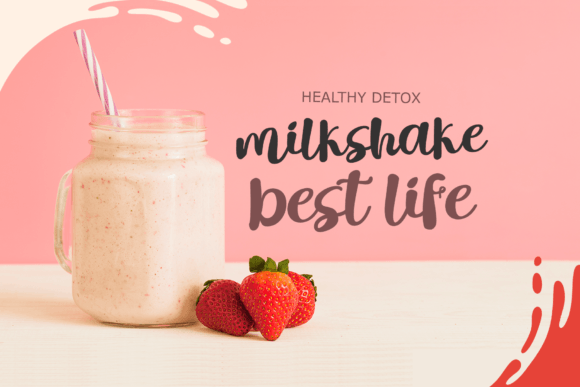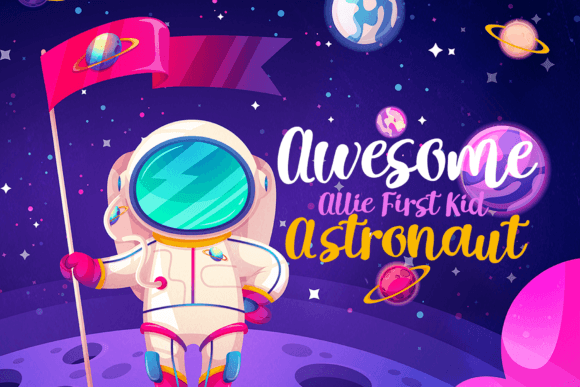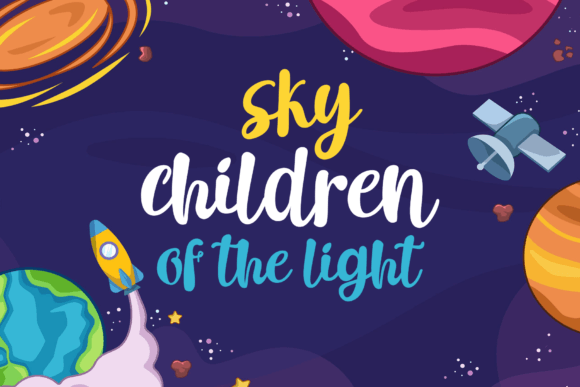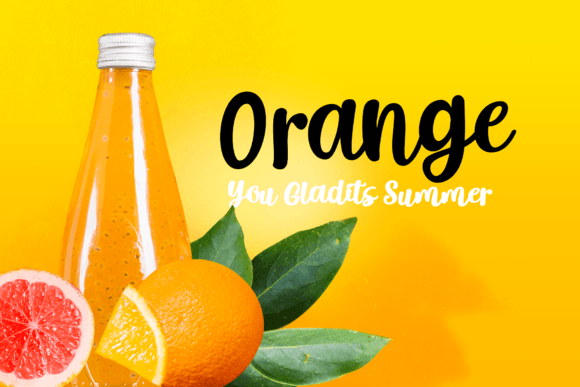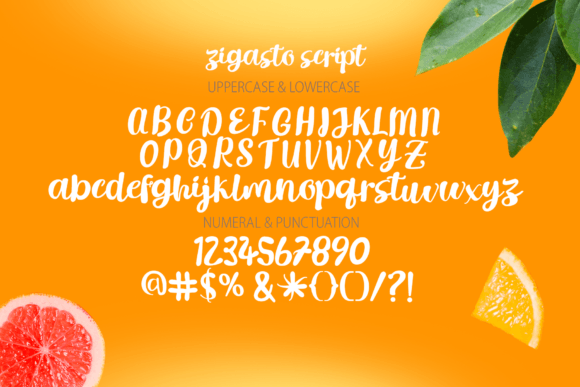
Zigasto Font
About Zigasto Font
Zigasto Font is a bold and rounded script typeface that brings a perfect blend of vintage and retro aesthetics. With its bold strokes and rounded design, this font is particularly well-suited for a variety of creative applications, including logos, t-shirts, branding, books, posters, packaging, labels, invitations, and more.
The boldness of Zigasto Font ensures that it makes a strong visual impact, especially in larger designs like posters or logos. The rounded script adds a touch of friendliness and approachability, making it a versatile choice for projects where a combination of boldness and a bubbly feel is desired.
The vintage and retro vibes of Zigasto Font make it a great fit for designs that seek to evoke a sense of nostalgia or capture a classic aesthetic. Whether used for branding or packaging, this font has the potential to create a distinctive and memorable look.
In t-shirt designs, Zigasto Font can add a playful and retro touch. Its softly curved profile contributes to a bubbly feel, making it suitable for casual and fun apparel designs.
The versatility of Zigasto Font allows it to adapt to various design contexts. Whether applied to book covers, labels, or invitations, this font can enhance the overall visual appeal, creating a cohesive and stylish look.
In summary, Zigasto Font is a bold and rounded script that seamlessly combines vintage and retro elements. Its suitability for a wide range of applications, from branding to t-shirt designs, makes it a valuable asset for designers seeking a font that exudes both boldness and a playful, bubbly charm. Incorporate Zigasto Font into your projects to infuse them with a touch of vintage flair and visual appeal.